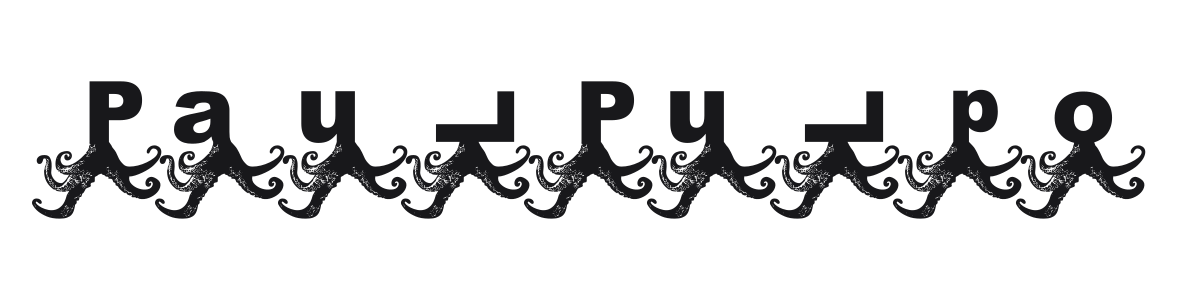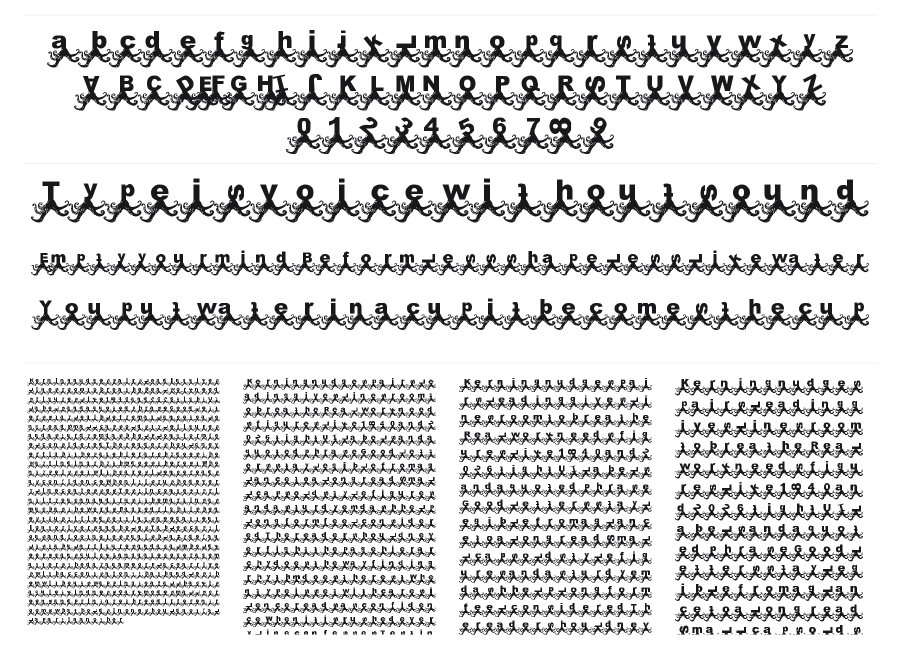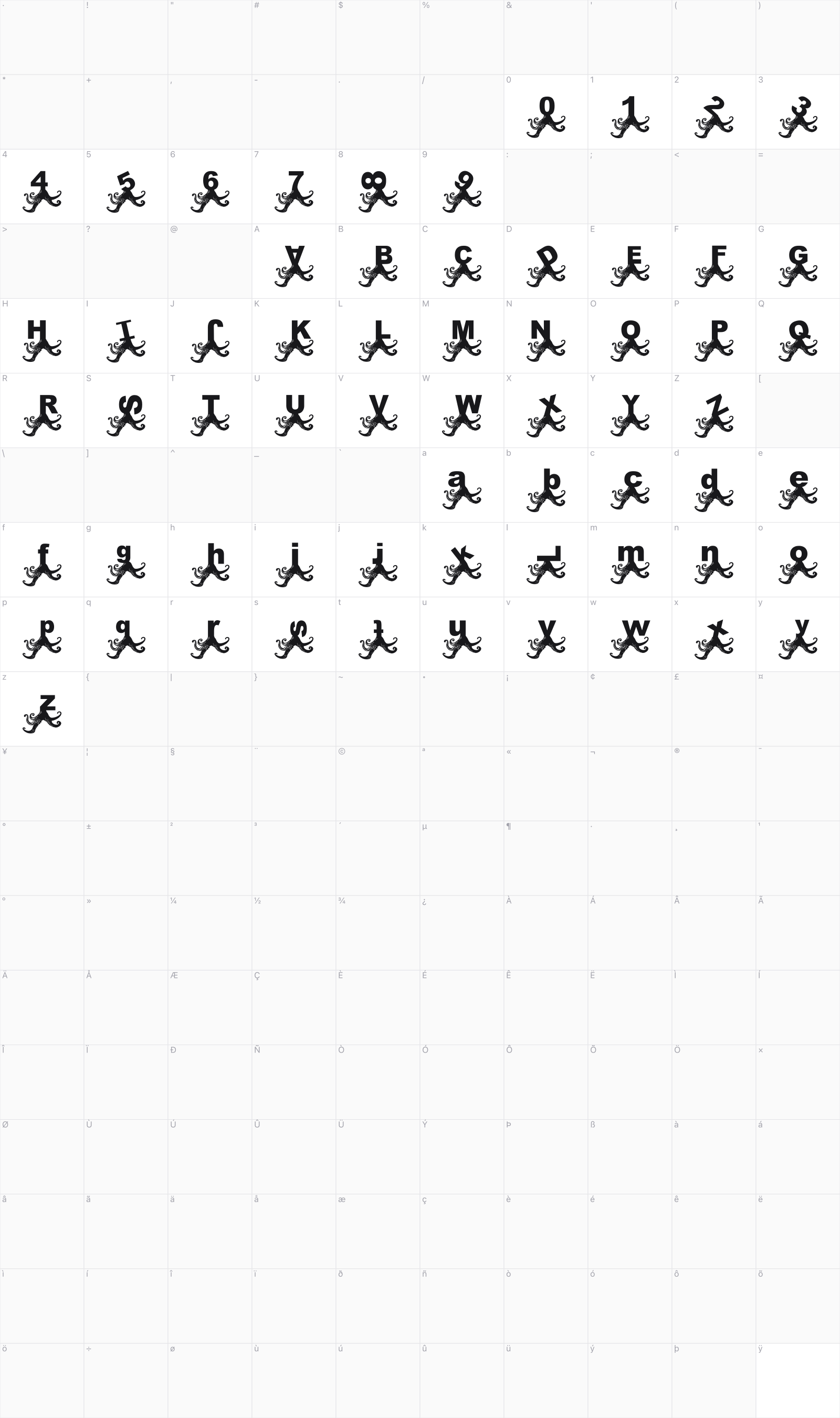
Paul Pulpo
by Andrea Bartsch
Paul Pulpo is a bold display font where every character grows a mass of curling, inky tentacles from its base. The letterforms themselves are chunky and readable, but the elaborate organic extensions transform the type into something closer to an illustration. Created by Andrea Bartsch in 2011, it occupies a rare space between typography and creature art.